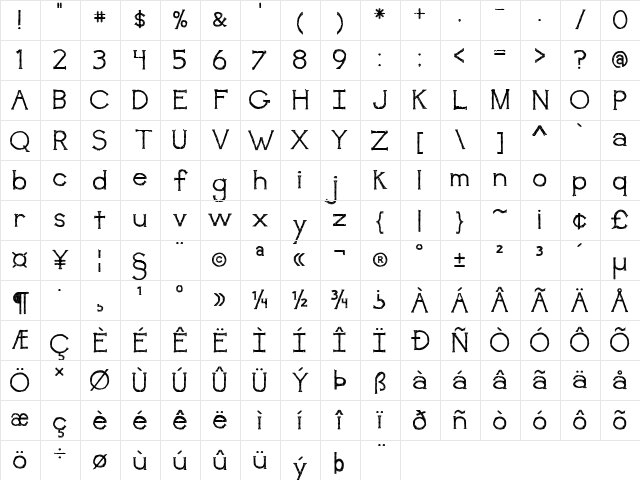
awakening Regular
Foundry: Brittney Murphy
Designer: Brittney Murphy
Design Context for awakening
awakening is a composed and adaptable typeface that performs quietly and consistently across a wide range of design contexts.